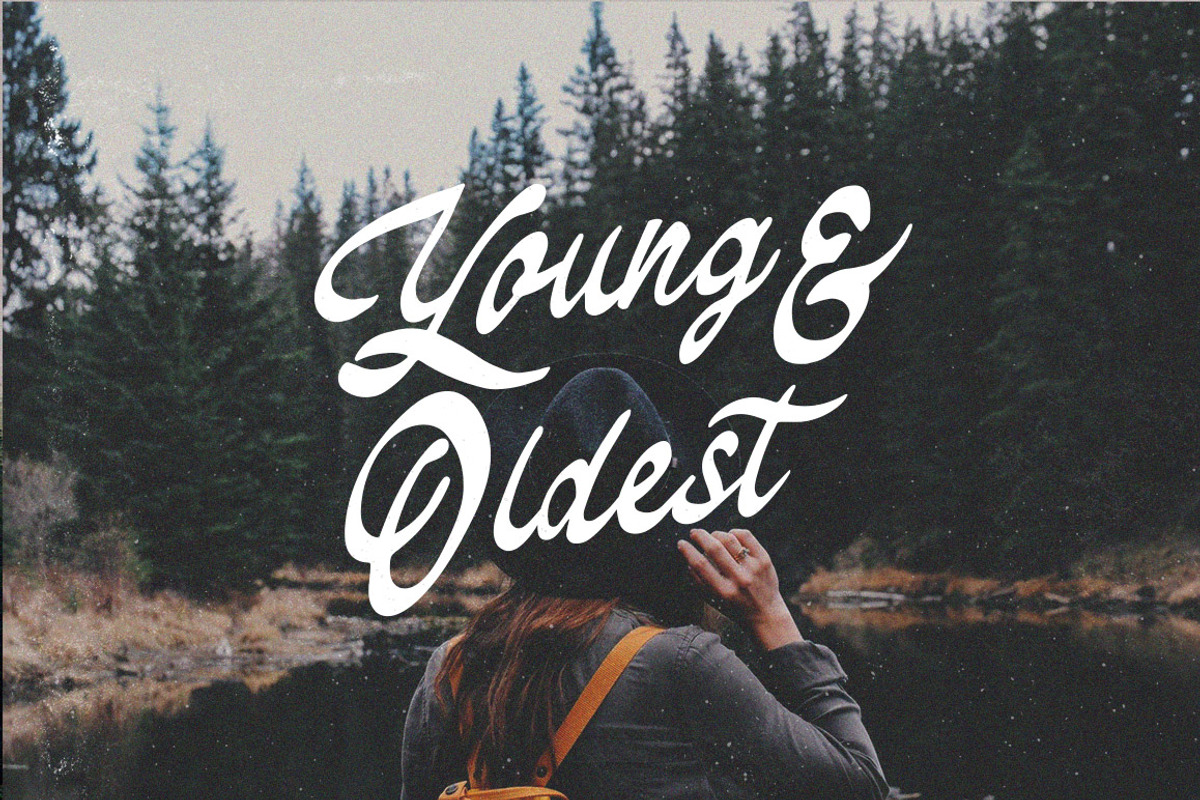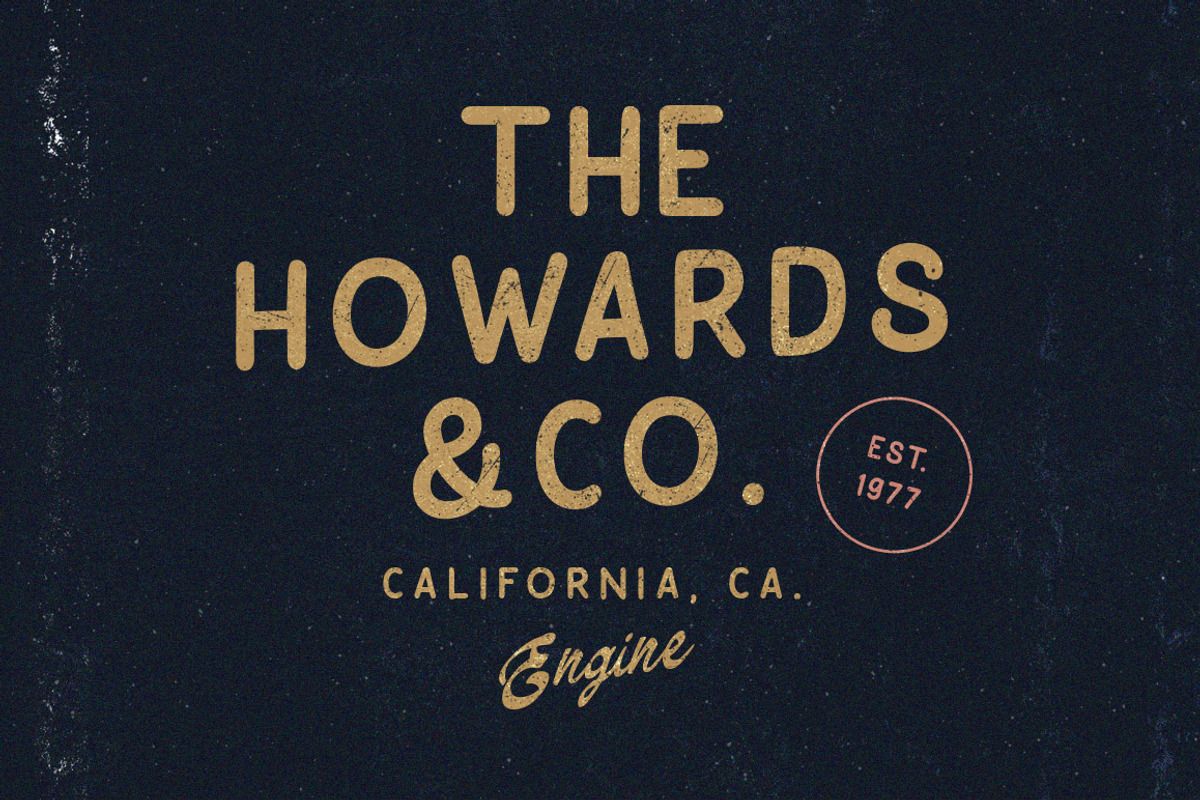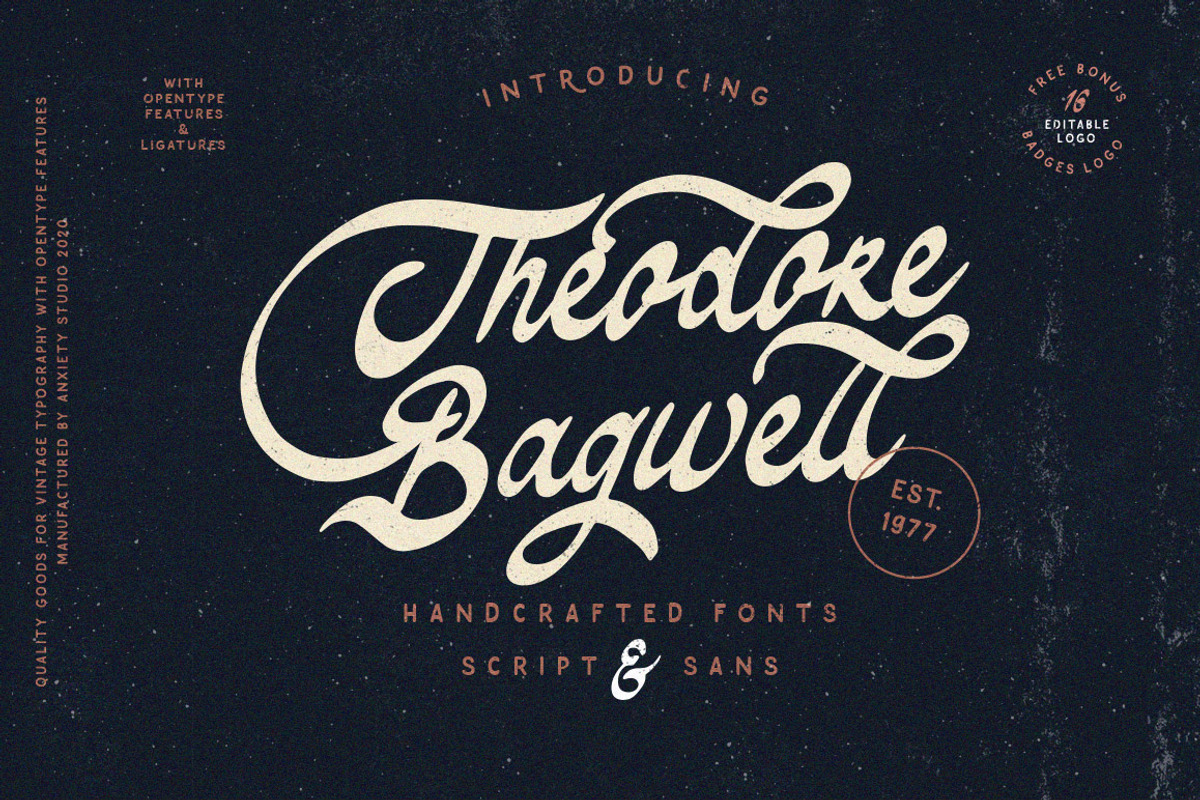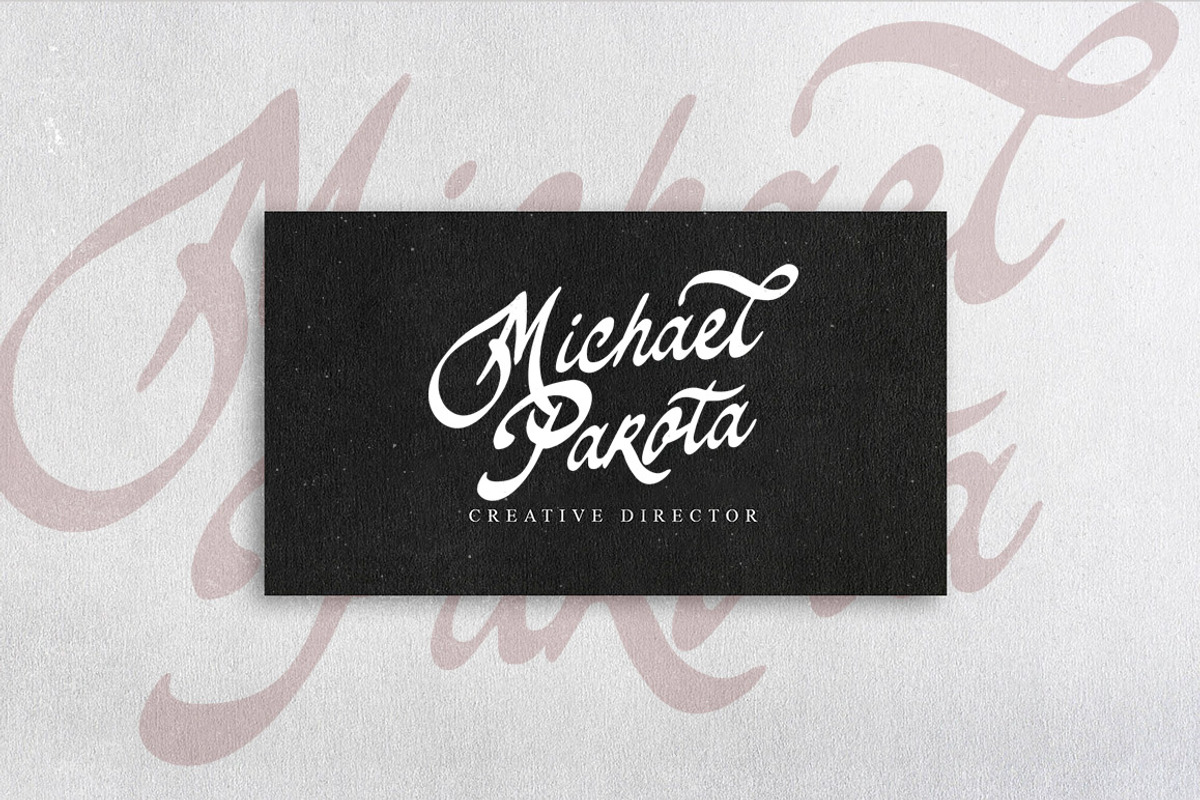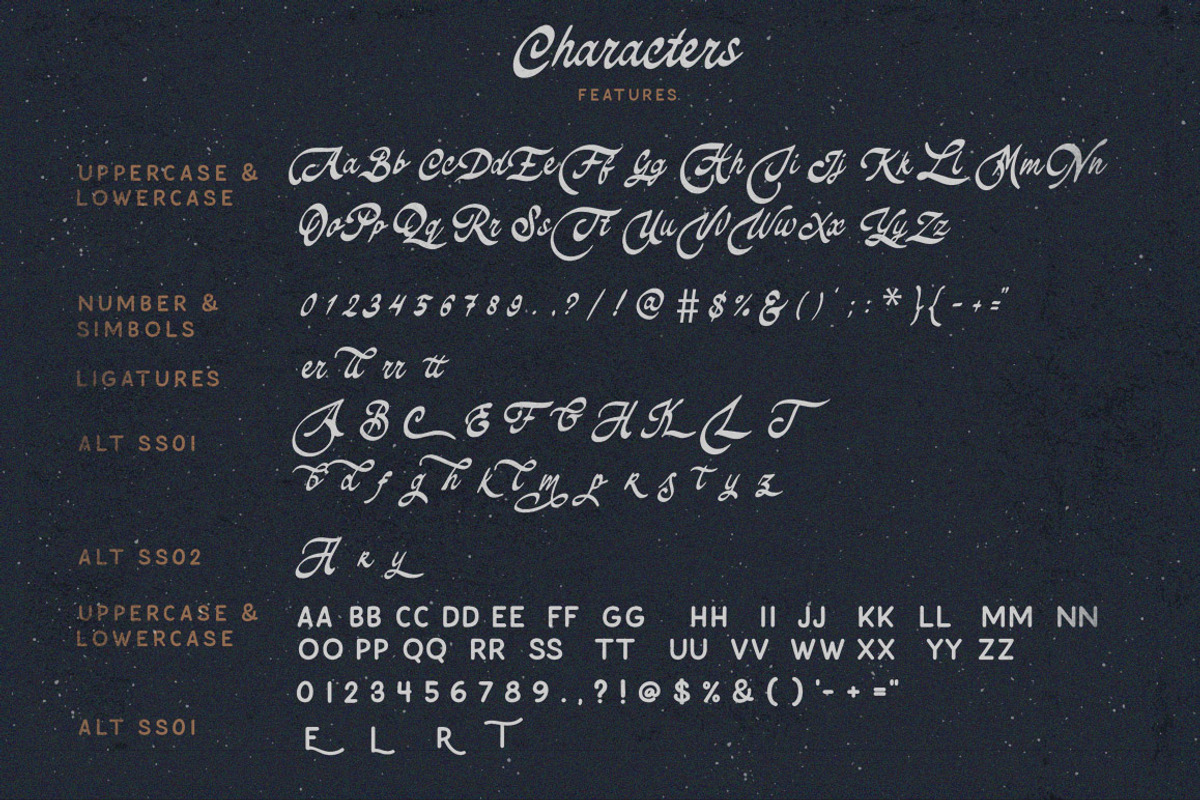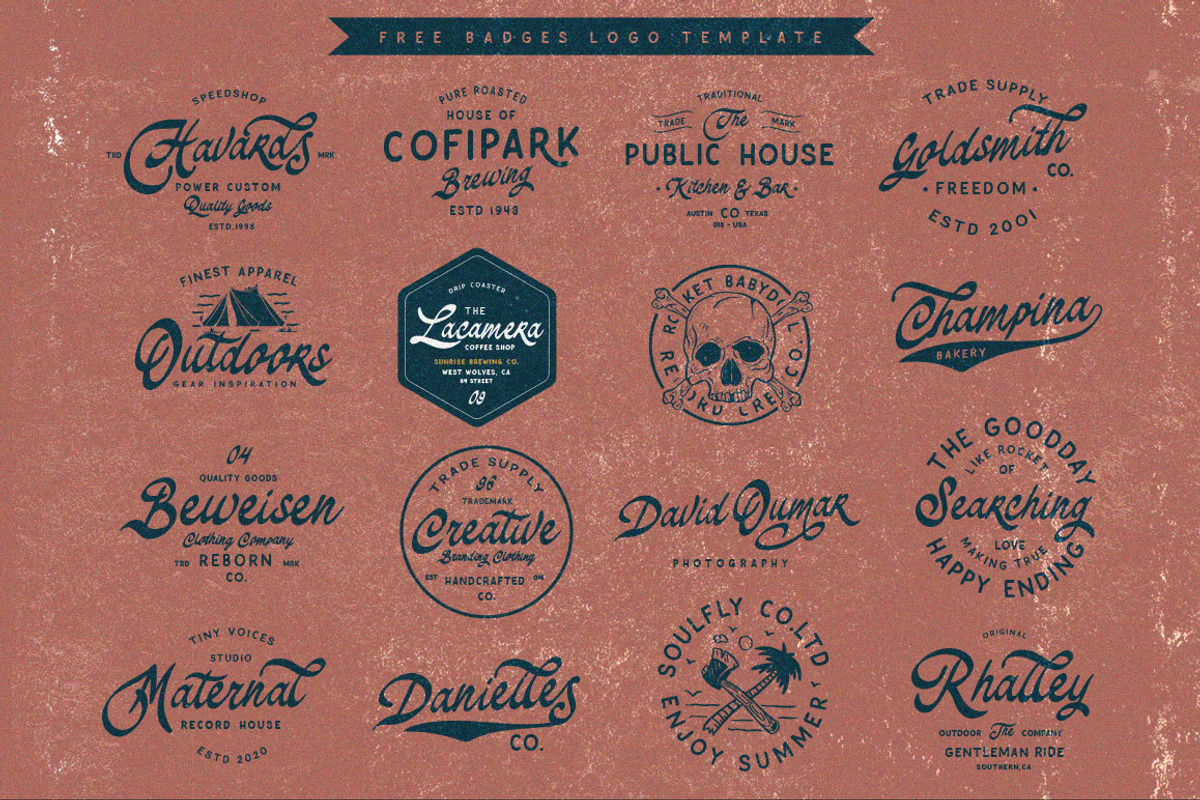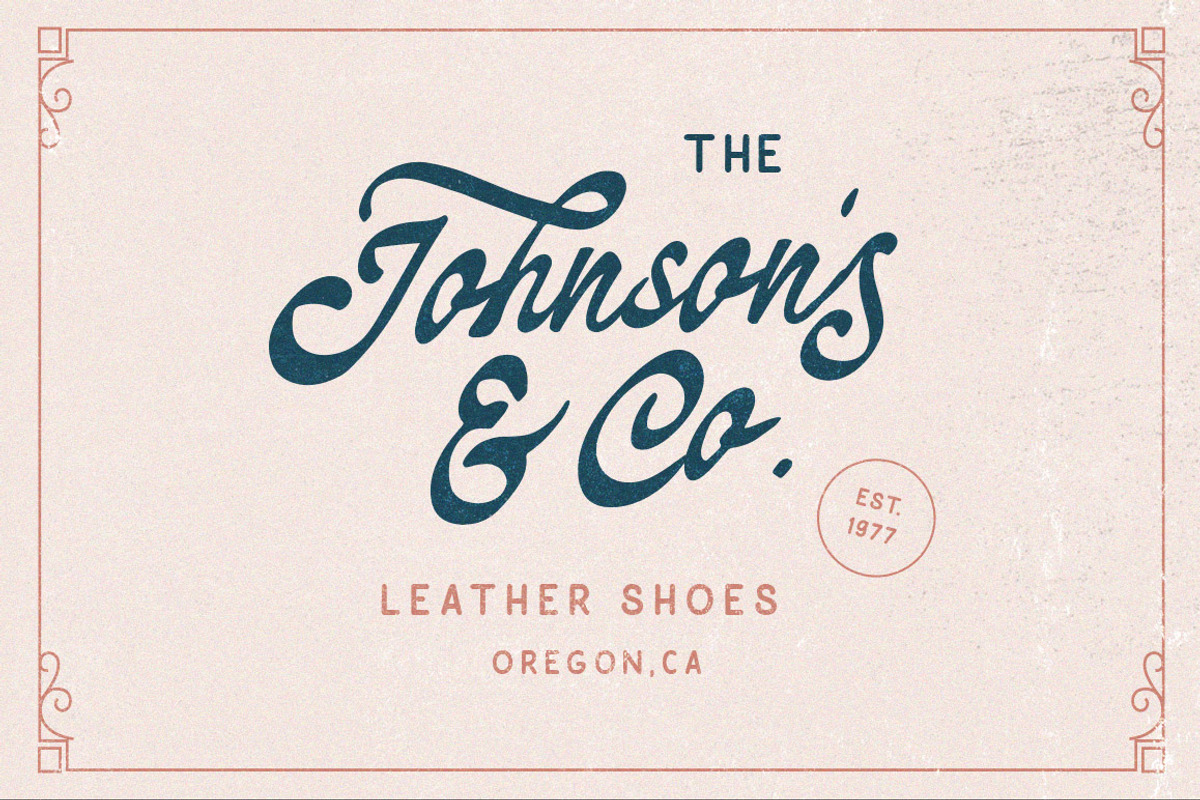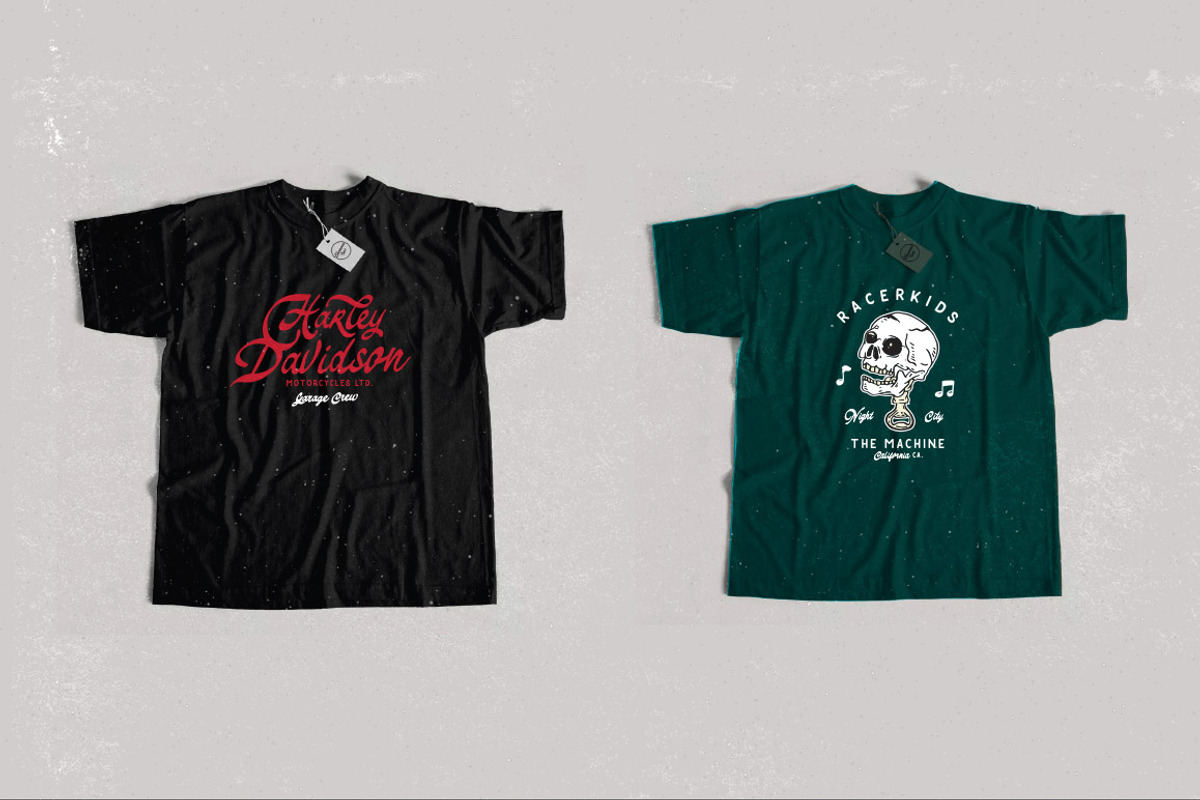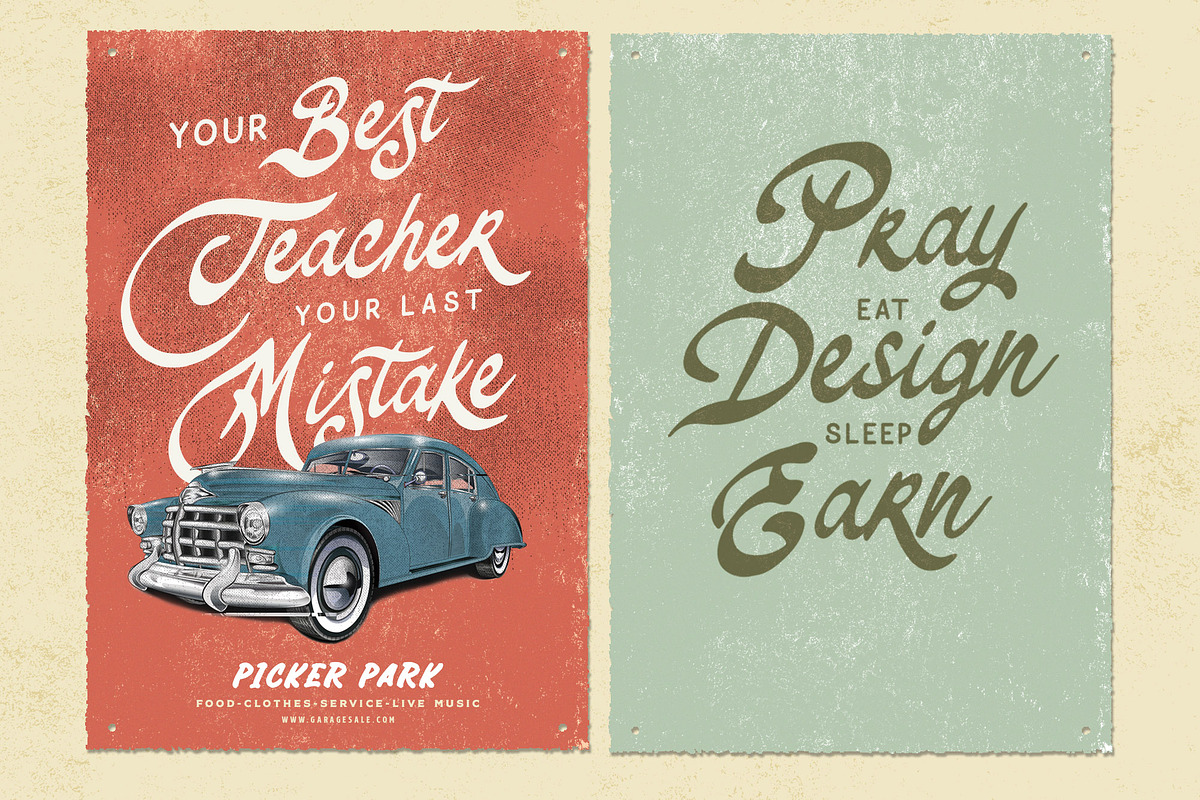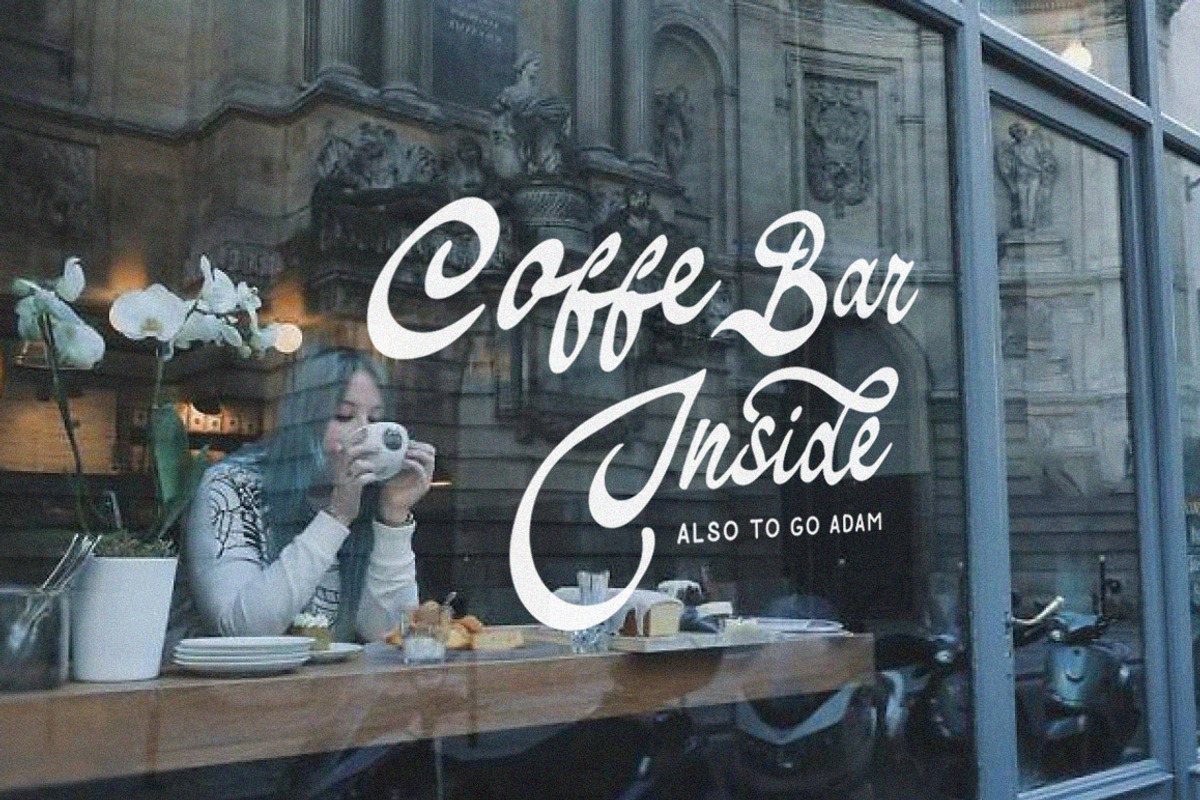
Theodore Bagwell Font Duo ( Extras)
Theodore Bagwell is Vintage script typeface, bold, clean and rough. There are so many variations on each character. Include Opentype stylistic alternates. with a combination of two fonts, namely sans serif and script, making this font beautiful and unique. You are able to create so many different typographical layouts easily and quickly. It was crafted by hand specially for traditional typography lovers and anyone who want to add natural handmade feeling in its brand identity. Make sure you use OpenType program and simply open Glyph Palette to access all of the glyphs.
Theodore Bagwell is very good looking in logo, labels, poster, quotes, t-shirt prints, product packaging, invitations, advertising and others. I've designed some examples, so you can see how it can be used, That are combined into one pretty package. You will see this combination more in badges logo.
- Uppercase,lowercase,numeral,punctuation & Symbol
- Stylistic alternates & Ligatures
- Bonus Swash